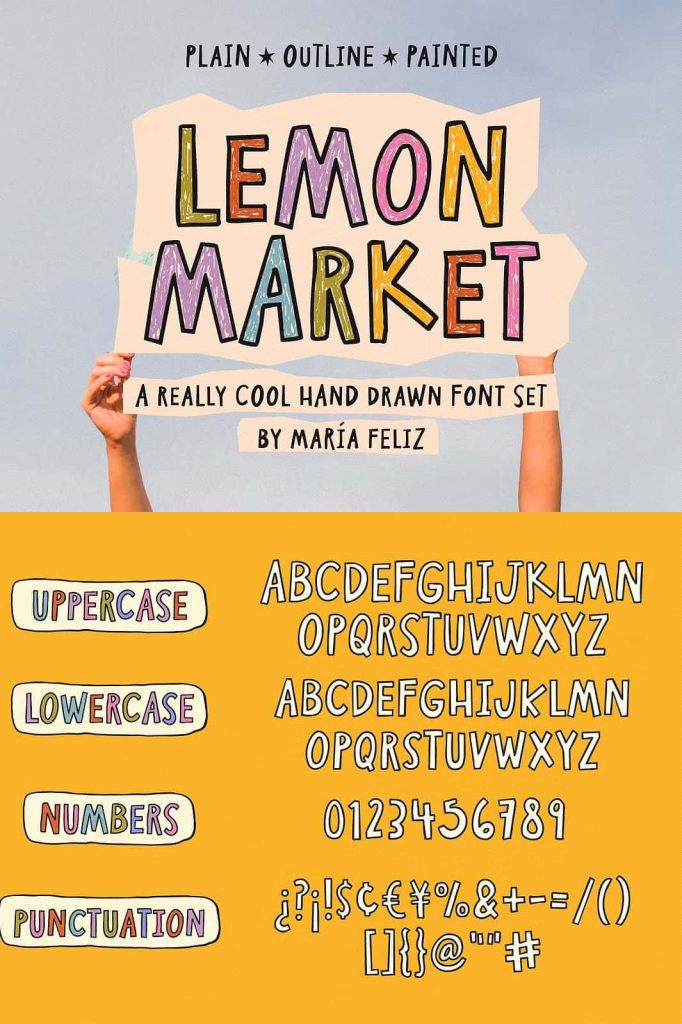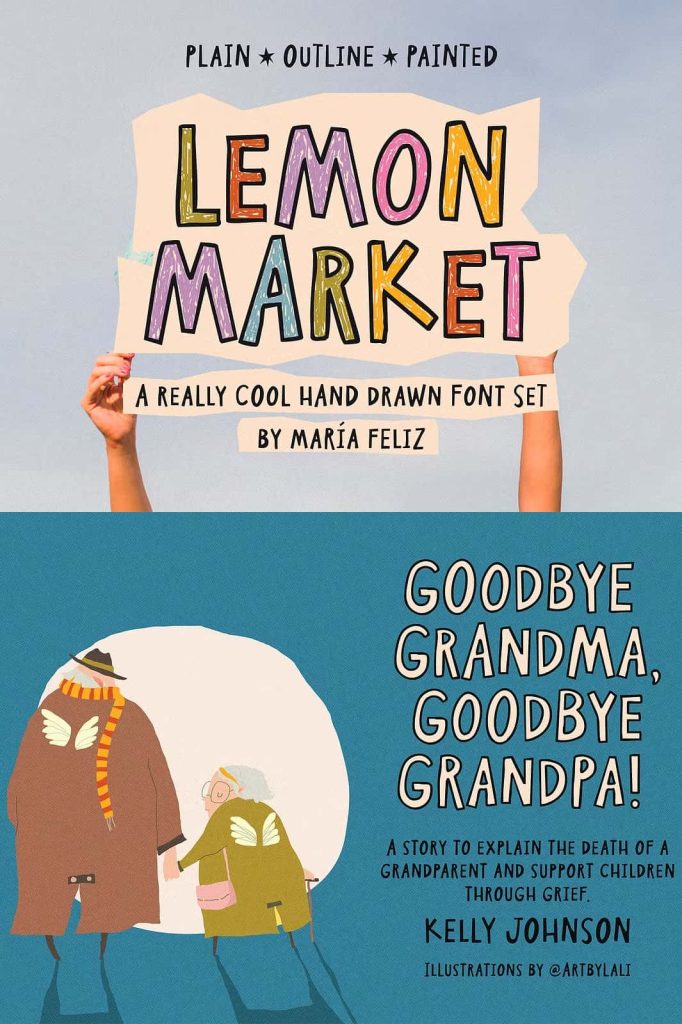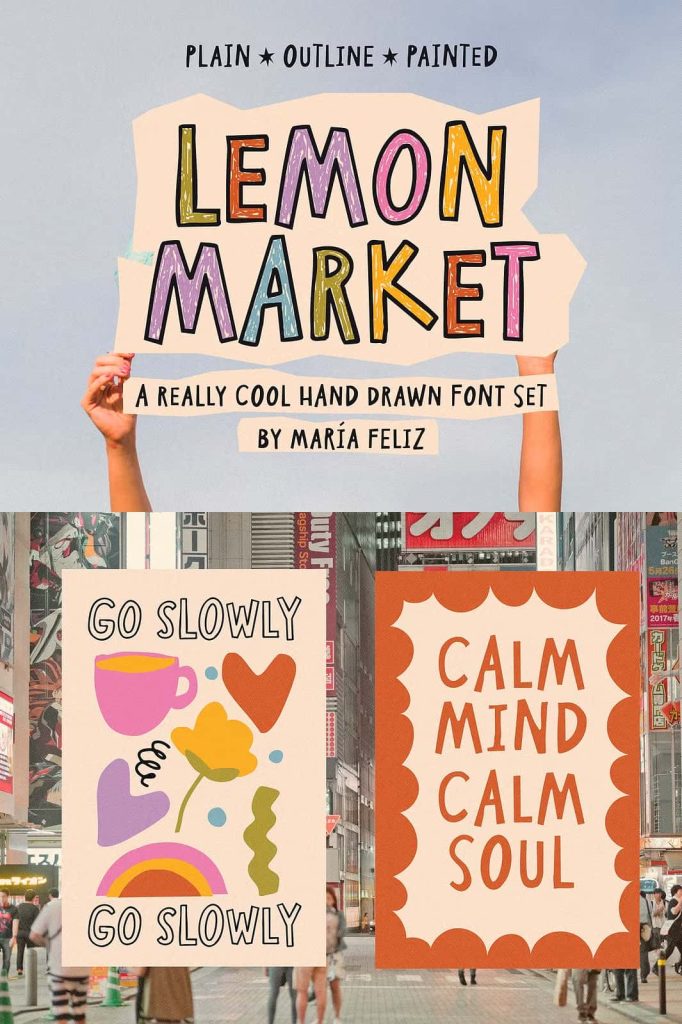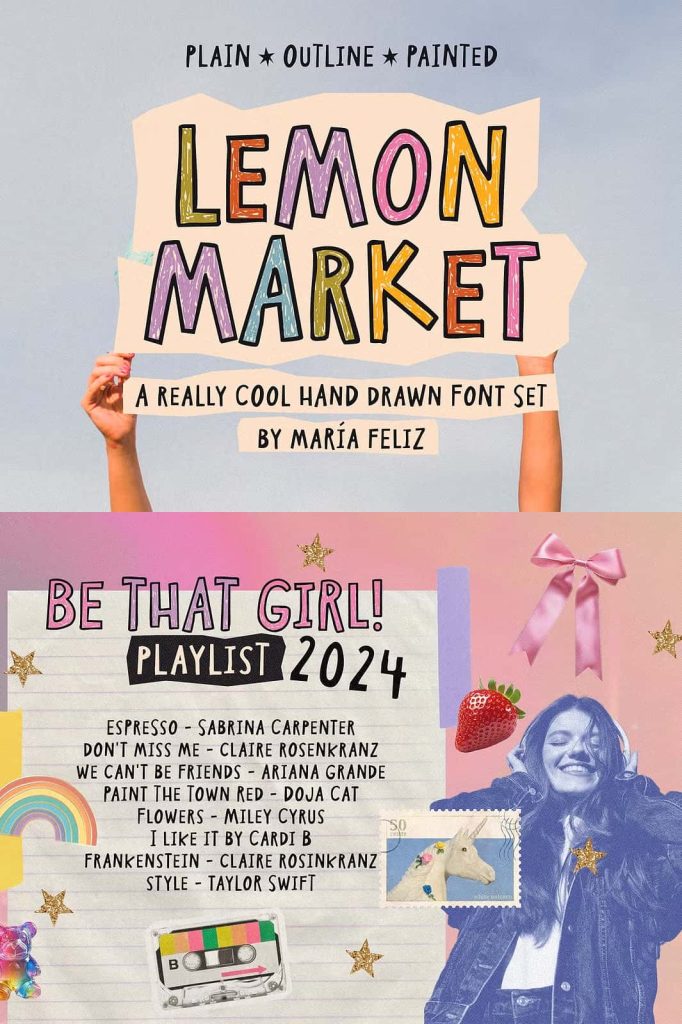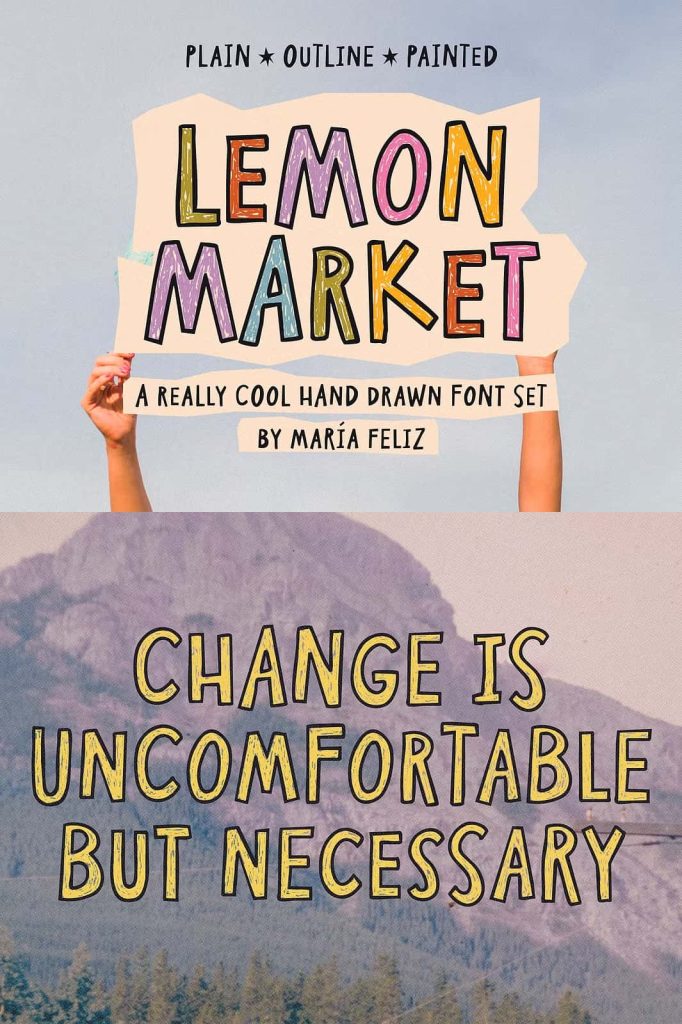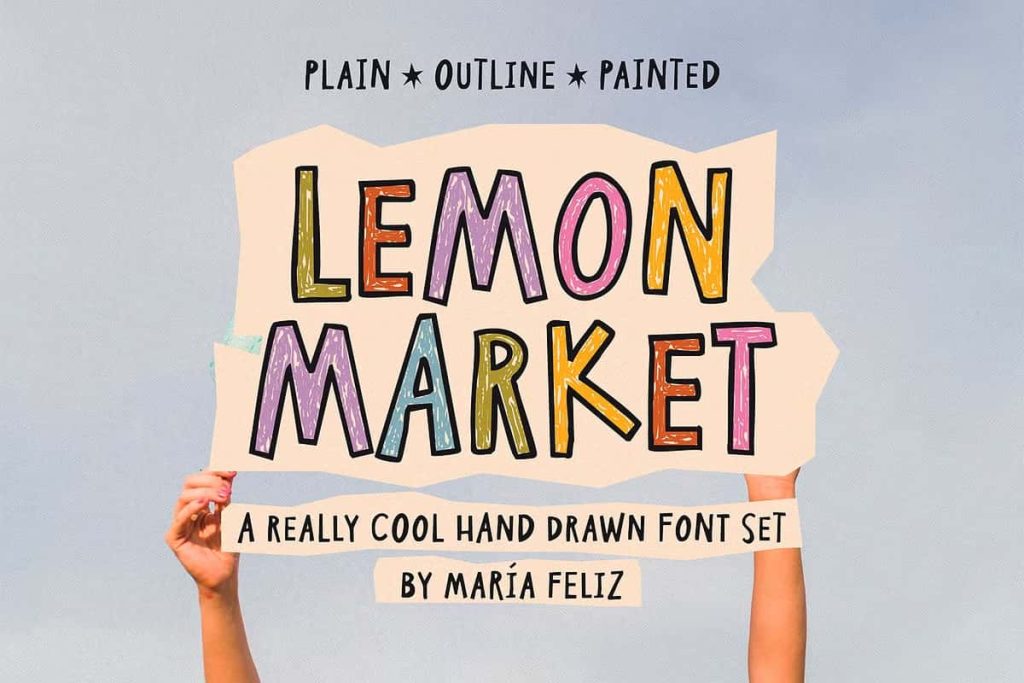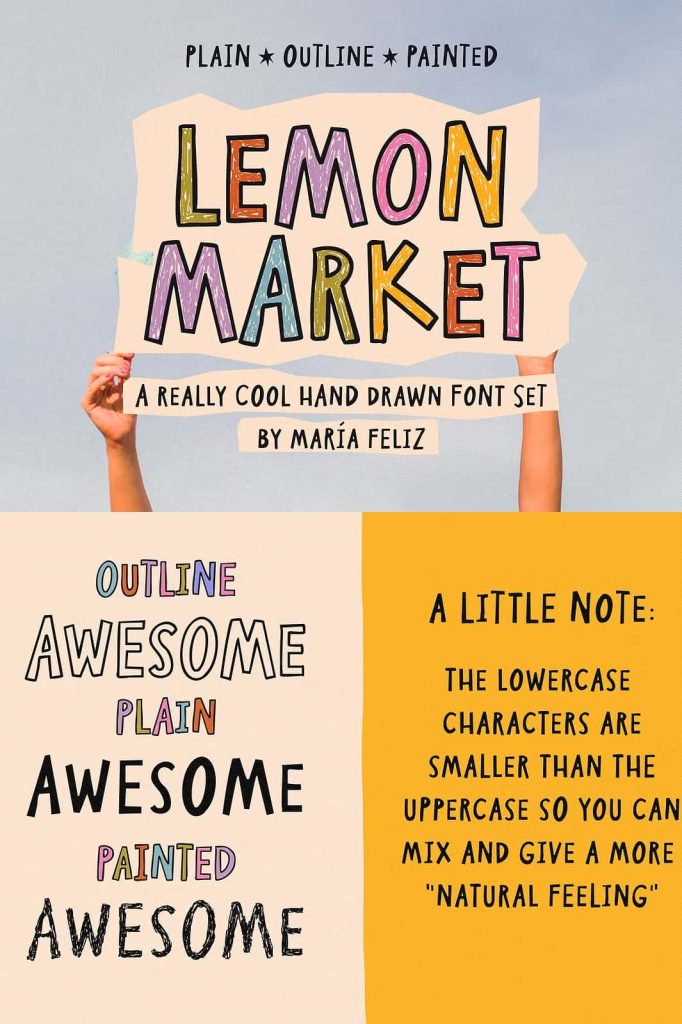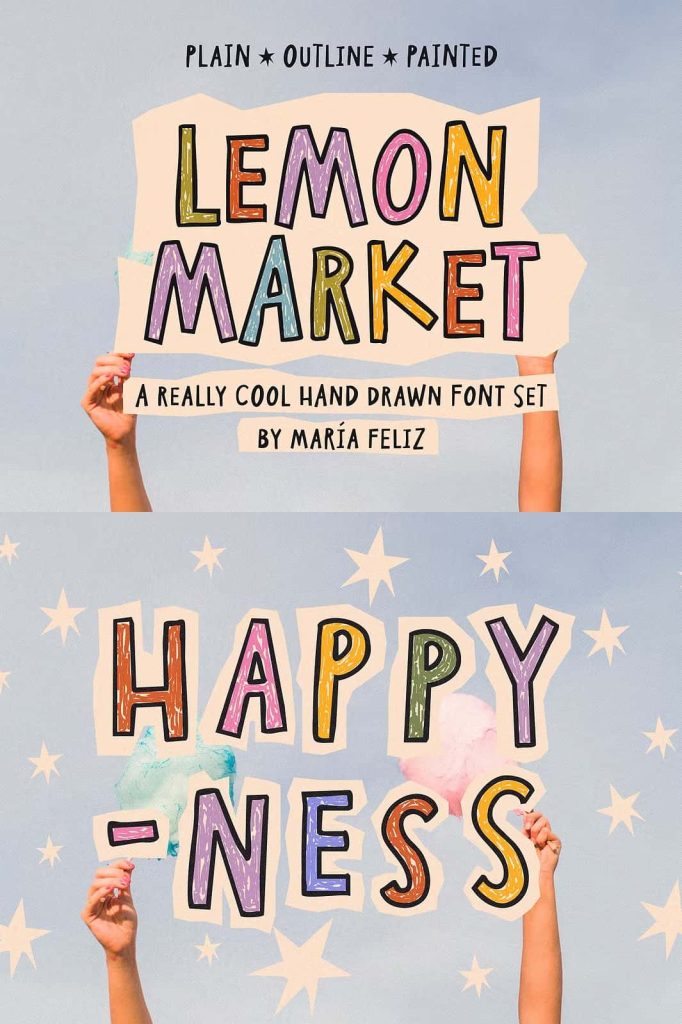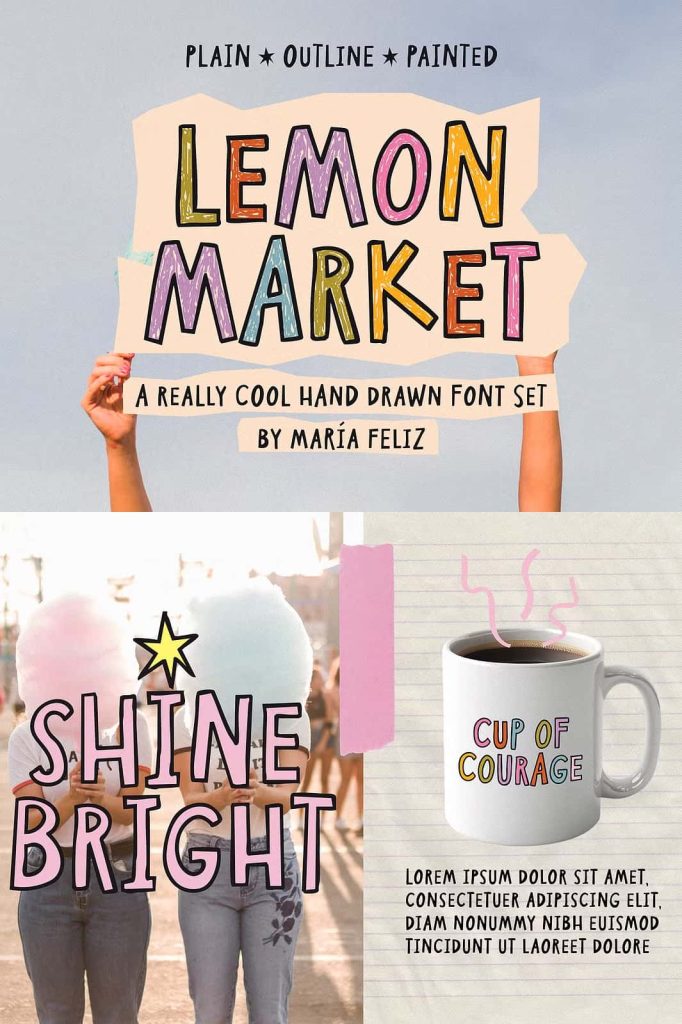
Lemon Market Handmade Font: Fresh, Playful, and Full of Character
Lemon Market is a handmade font that delivers a fresh and lively personality to any design. It combines playful energy with authentic craftsmanship, making it a perfect choice for creatives who want their work to feel natural and engaging. This font does not follow rigid structures—instead, it embraces irregularity and spontaneity to create a unique visual voice. Every letter carries a sense of movement and charm, helping designers produce work that feels approachable and full of life.
A Playful Style That Captures Attention
Lemon Market stands out through its irregular and dynamic letterforms. The font uses varied shapes and subtle inconsistencies to create a handcrafted look that feels genuine. This playful style immediately captures attention, making it ideal for projects that need to communicate energy and creativity. Instead of appearing overly polished or mechanical, Lemon Market delivers a human touch that resonates with modern audiences.
The font encourages designers to break away from conventional typography. Its lively appearance invites experimentation, allowing creators to develop designs that feel expressive and original. Whether used in bold headlines or supporting elements, Lemon Market adds personality that keeps viewers engaged.
Authentic Handmade Feel for Modern Design
Lemon Market reflects the essence of handmade artistry. Each character appears as if it has been carefully drawn by hand, giving the font a warm and relatable quality. This authenticity helps build stronger emotional connections with audiences, especially in projects where sincerity and individuality matter.
The organic flow of the letters enhances readability while maintaining visual interest. Designers can rely on Lemon Market to deliver both style and clarity, ensuring that messages remain impactful without sacrificing aesthetics. This balance makes it a versatile tool for a wide range of creative applications.
Designed for Versatility Across Creative Projects
Lemon Market adapts effortlessly to different design needs. In quotes and inspirational graphics, it adds a cheerful and uplifting tone that enhances the message. Its playful nature makes it particularly effective for social media content, where eye-catching visuals are essential for engagement.
For branding projects, Lemon Market helps establish a friendly and approachable identity. Businesses that want to appear creative, youthful, or handmade can use this font to communicate their values effectively. It works well for small businesses, lifestyle brands, and creative entrepreneurs who want to stand out with a distinctive look.
In stationery design, Lemon Market introduces a personal touch that feels warm and inviting. From greeting cards to invitations, the font enhances the emotional appeal of printed materials. Its handcrafted style makes every piece feel special and thoughtfully created.
Perfect for Packaging, Stickers, and More
Lemon Market excels in packaging design, where visual appeal plays a crucial role in attracting customers. Its playful and authentic style helps products stand out on shelves, especially in markets that value creativity and originality. The font works particularly well for handmade goods, artisanal products, and lifestyle items that emphasize personality and uniqueness.
Sticker designs also benefit from Lemon Market’s lively character. The font adds a fun and expressive element that makes designs more memorable. Whether used for decorative purposes or branding, it enhances the overall impact of the final product.
Beyond these applications, Lemon Market remains flexible enough to fit into various creative contexts. Designers can use it for blogs, digital content, promotional materials, and more. Its adaptability ensures that it remains a valuable asset across multiple platforms and industries.
Bring Energy and Authenticity to Your Work
Lemon Market empowers designers to create work that feels vibrant and genuine. Its combination of playful irregularity and handcrafted charm makes it a standout choice for projects that demand creativity and personality. By using Lemon Market, designers can transform simple ideas into visually engaging experiences that connect with audiences on a deeper level.
This font goes beyond decoration—it actively enhances storytelling and brand identity. With its fresh style and dynamic presence, Lemon Market becomes more than just a typeface. It becomes a creative partner that helps bring ideas to life with energy and authenticity.